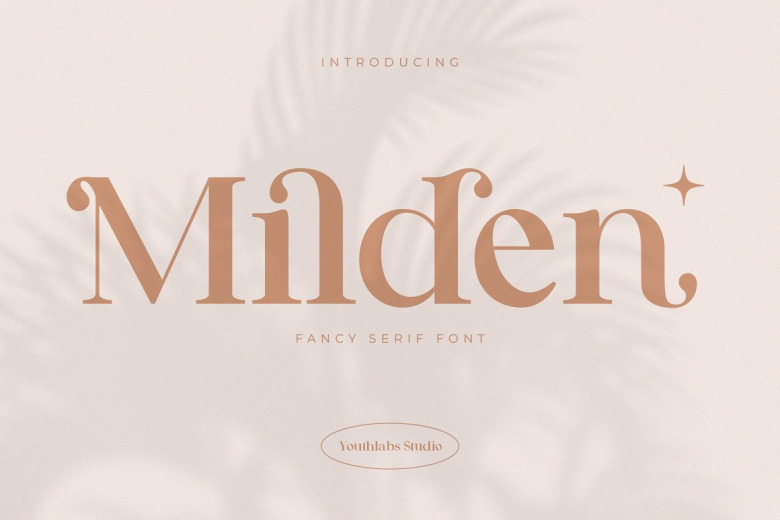
Milden Font
Milden is a serif font that gives you additional taste in your design. For the logo of a fashion brand, it gives a very becoming feel. With a plentiful selection of alternative faces, Milden makes it easy for you to employ various design functions,- from logos on clothing to& finger tips around a phone screen where ever and what ever you happen be designing in terms of typography magazines fashion branding advertising or much else.
Milden Serif Font